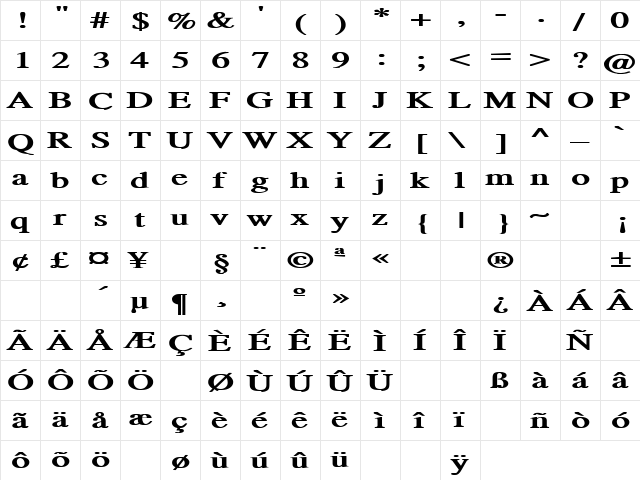
Walkin' The Dog 4 Bold
Design Context for Walkin' The Dog 4 Typeface
Walkin' The Dog 4 is a composed and adaptable typeface that performs quietly and consistently across a wide range of design contexts. Its bold stroke weight gives it real presence on the page.